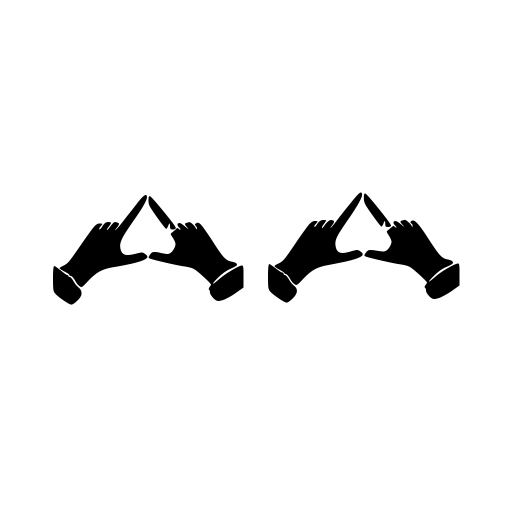
Bk Bisindo is a unique decorative font featuring bold, graphic representations of hand signs from Indonesian Sign Language. Its solid black silhouettes with clear, expressive shapes make it highly distinctive and visually impactful. This font works best for specialized projects that aim to raise awareness or celebrate Deaf culture, such as educational materials, inclusive branding, or artistic posters.
Bk Bisindo Font
About Bk Bisindo Font